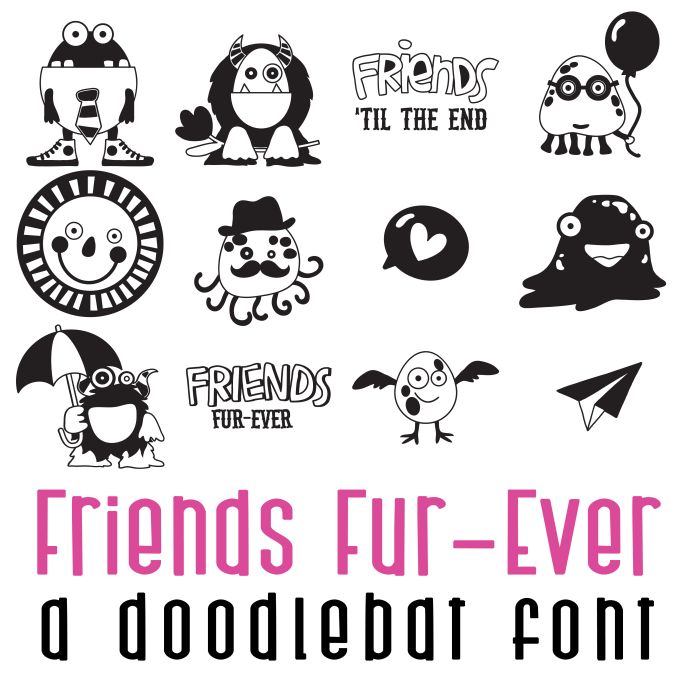
Friends Fur-Ever Doodlebat Font
This doodlebat font features 26 adorable monsters perfect for cards, crafts, gifts, decor, scrapbook pages, planner stickers, and more!